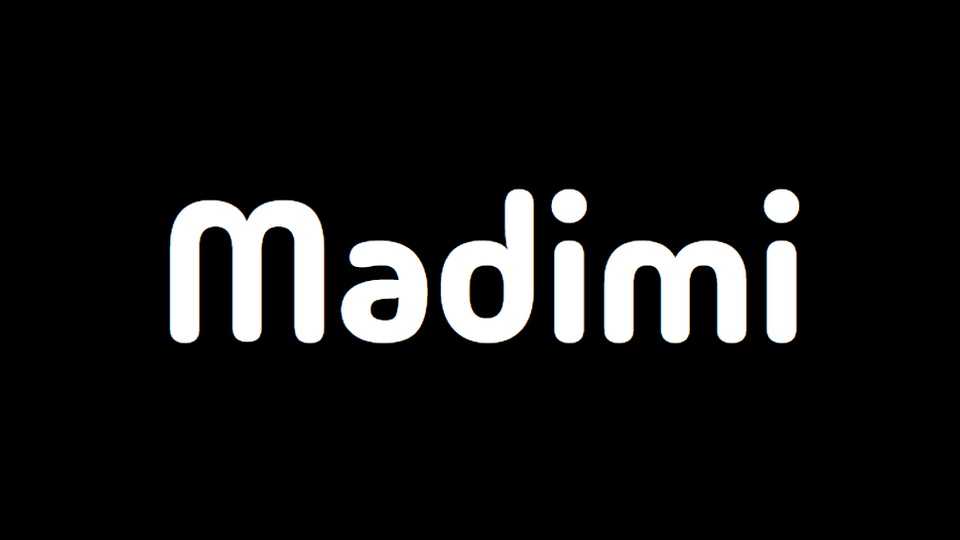
Download Madimi font, a rounded sans serif typeface with a mixed geometric and organic design. Madimi is simple, clean and round edged but still remains clear and easy to read.
Designer: Taurai Mtake